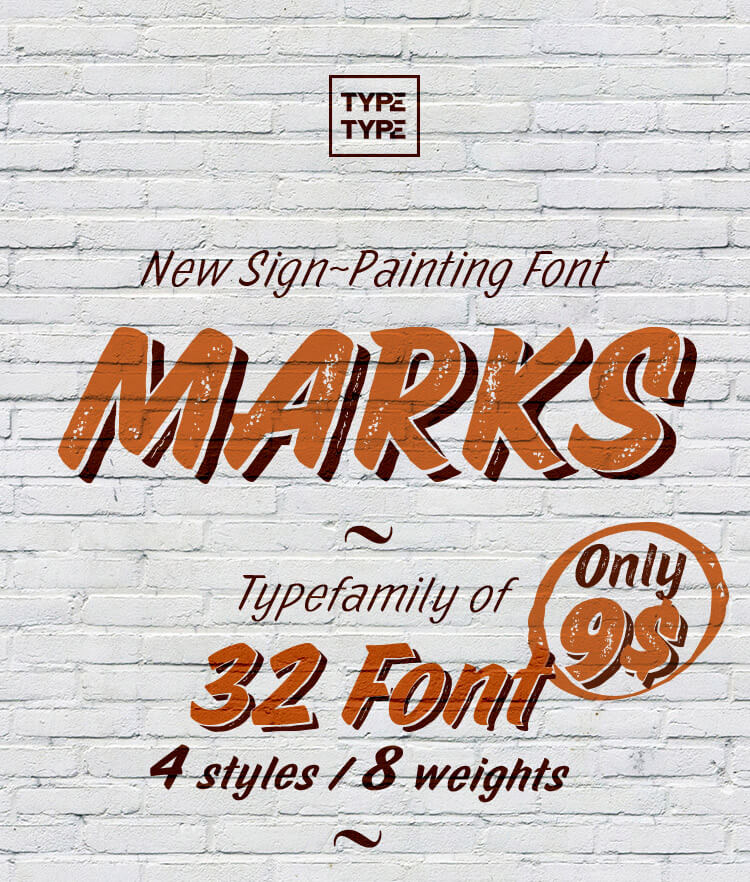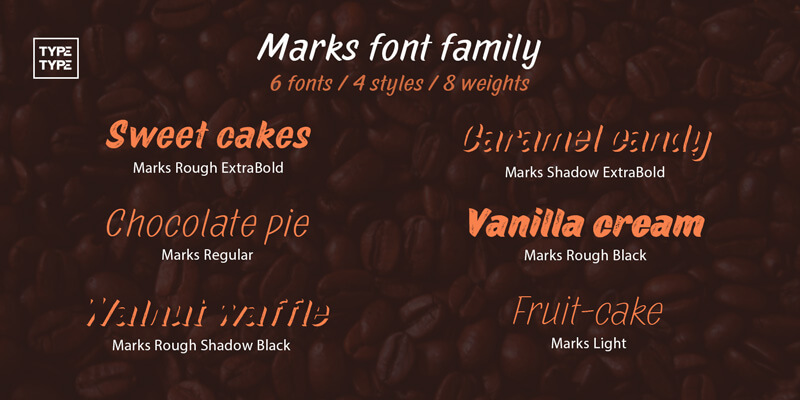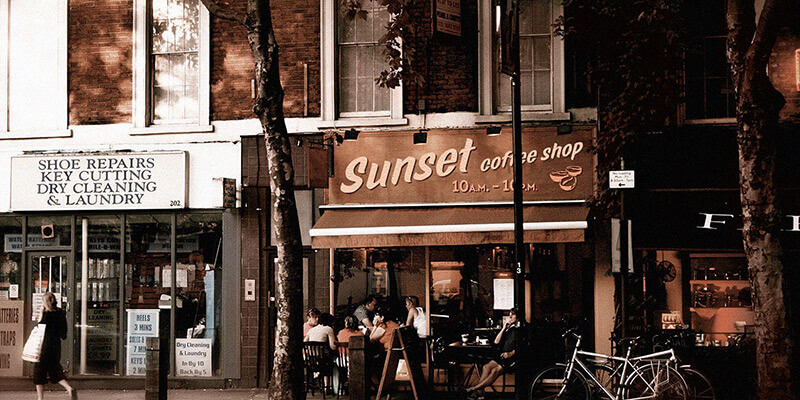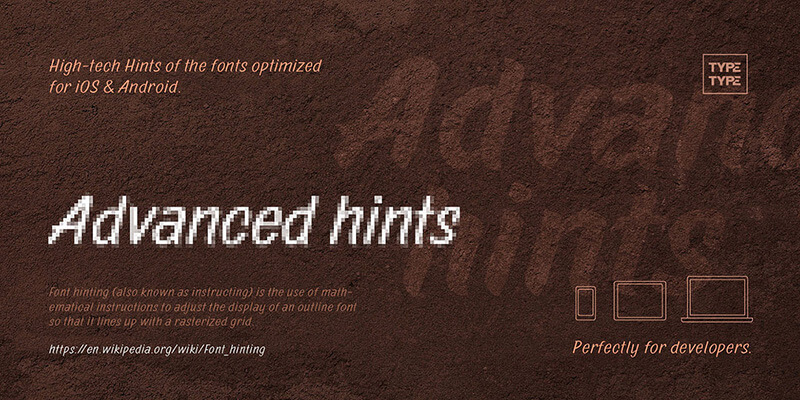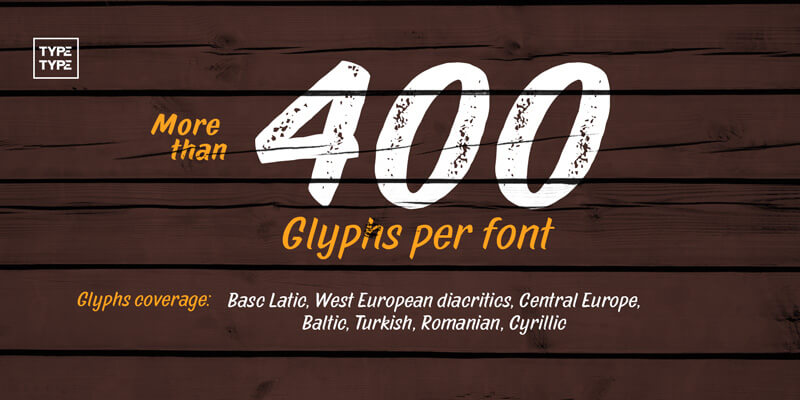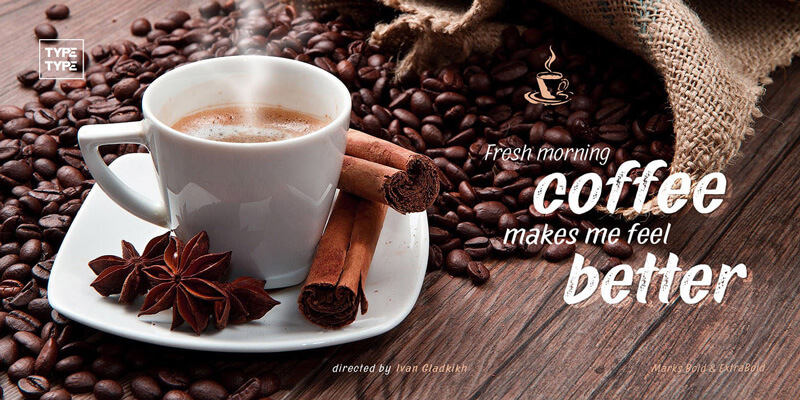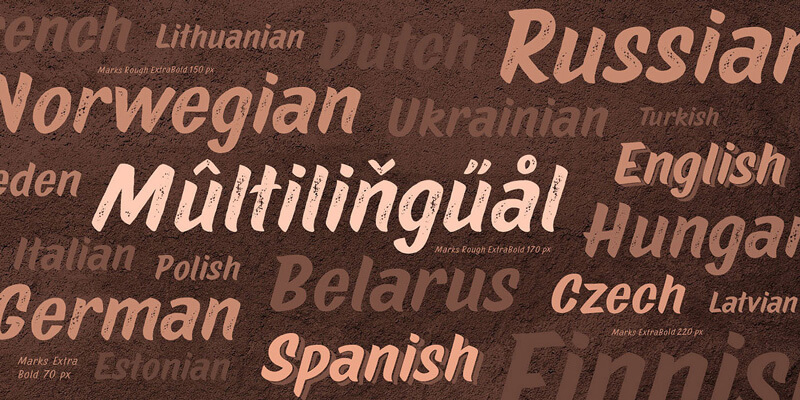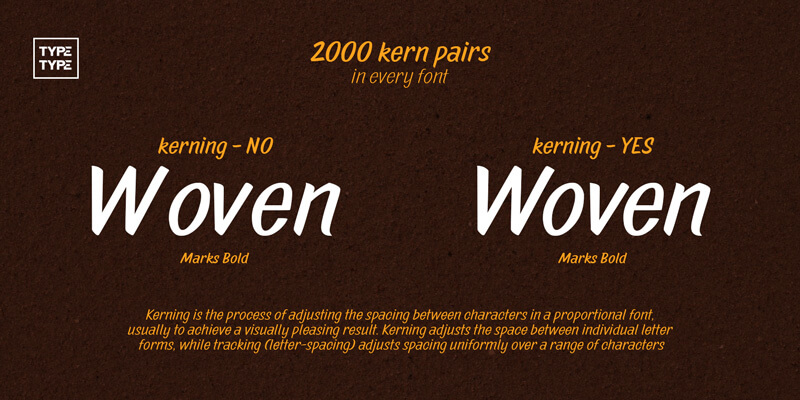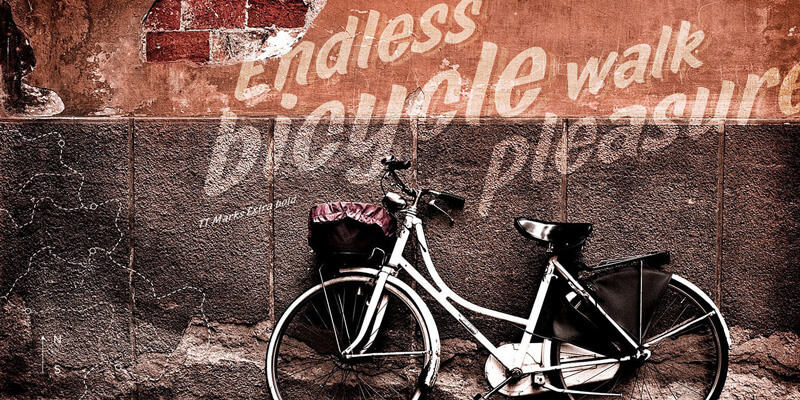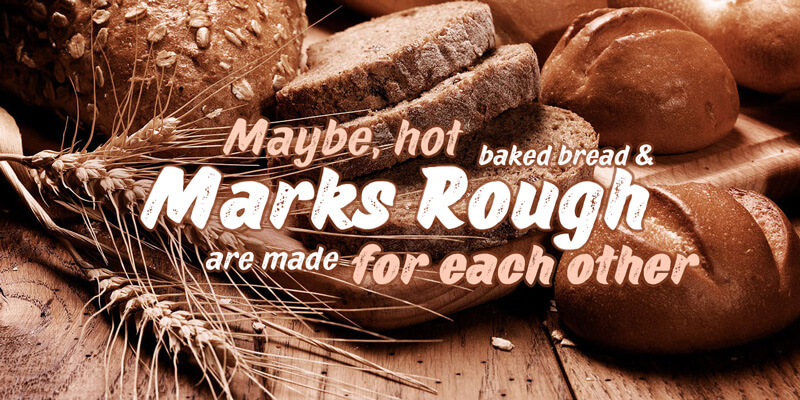
MARKS – 32 Type Family Fonts
Looking to add a touch of sophistication and versatility to your next design? The MARKS – 32 Type Family Fonts bundle is an incredible opportunity to elevate your projects. This premium font bundle, brought to you by the talented team at TypeType, offers an exceptional collection of 32 distinct typefaces. These fonts are perfect for a wide range of applications, from branding and editorial design to packaging and web design. You’ll find these 32 type family fonts to be an indispensable asset in your creative toolkit.
MARKS – 32 Type Family Fonts: An Unbeatable Deal
This isn’t just any font collection; it’s a carefully curated selection designed to impress. The MARKS – 32 Type Family Fonts bundle is an incredible deal that you won’t want to miss. Each font within this family boasts a unique character, ensuring you have the perfect typographic solution for every project. Whether you’re designing for a cozy coffee shop, a delightful bakery, or any sweet and delicious venture, these 32 type family fonts will add that perfect finishing touch. Imagine the impact of using “Sweet Cakes – Marks Rough ExtraBold” or “Caramel Candy – Marks Shadow” in your designs. These fonts are truly designed to take your work to the next level.